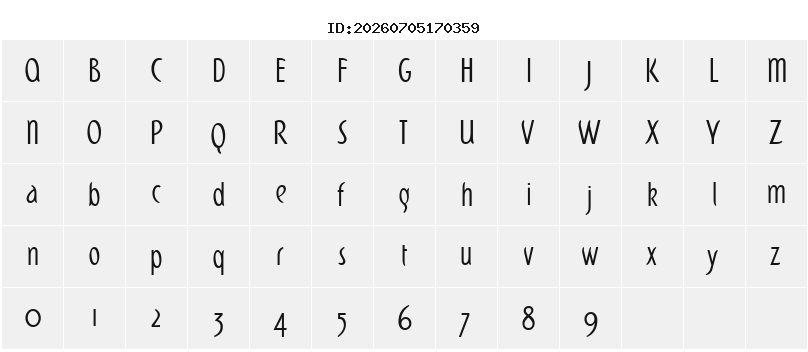
Domingo Preview
• Font Name: Domingo
• Full Font Name: Domingo
About Domingo.ttf
Domingo.ttf is a modern, elegant sans-serif font designed for ultimate readability and visual harmony. Perfect for branding, headlines, web design, and print materials.